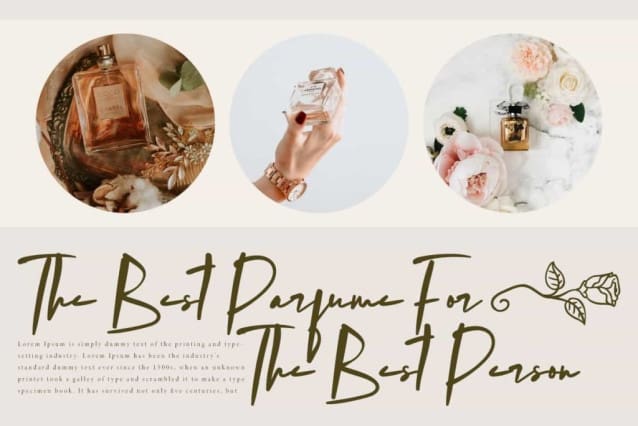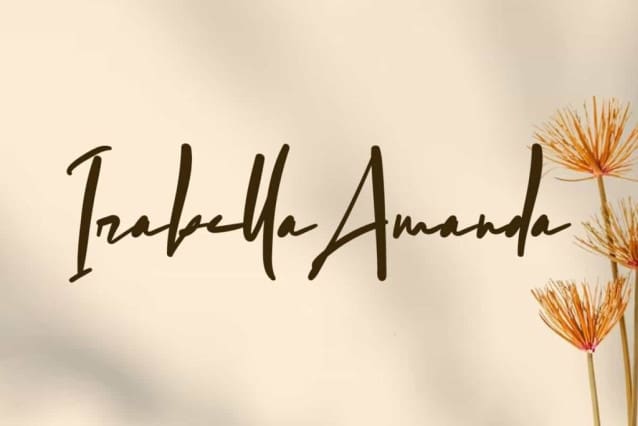
Irabella Amanda Font
Irabella Amanda Font is a thick and stunning signature brush handwritten font, designed by VinType Studio. This font has thick lines so it looks old-school, but still like natural handwriting made from ink. This font will be suitable for many industries, such as advertising, beauty product, design interior, event or wedding organizer, fashion, handcraft, homeware, photography, spa and salon, and more!
Irabella Amanda Font includes full set of Uppercase and Lowercase Basic Characters, Numerals, Punctuation, Symbol, and Ligature. This font has its own charm that makes it look distinctive and charming, so it will work well with a lot of designs, such as brand logo, brochure, custom design, invitation, label, packaging design, quote, screen printing, stationery, website, etc.